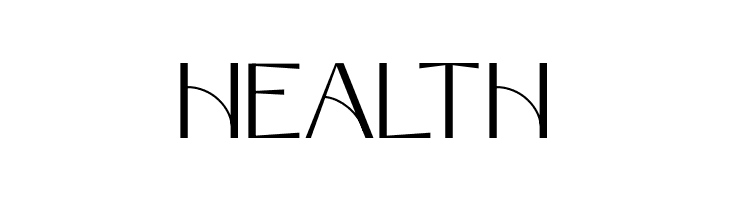
( Fonts by Hatf Type )
A modern, elegant script font with fluid, cursive letterforms.
( Fonts by Hatf Type )
A modern, handwritten font with elegant, fluid strokes and dynamic character.
( Fonts by Gatype )
Playful, expressive handwritten script with tall, narrow forms.
( Fonts by Gatype )
A high-contrast, geometric sans-serif with artistic, modern flair.
( Fonts by Gatype )
Casual, handwritten script with tall, flowing characters.
( Fonts by Gatype )
A high-contrast, modern sans-serif with decorative flourishes.
A bold, graffiti-inspired font with sharp angles and urban flair.